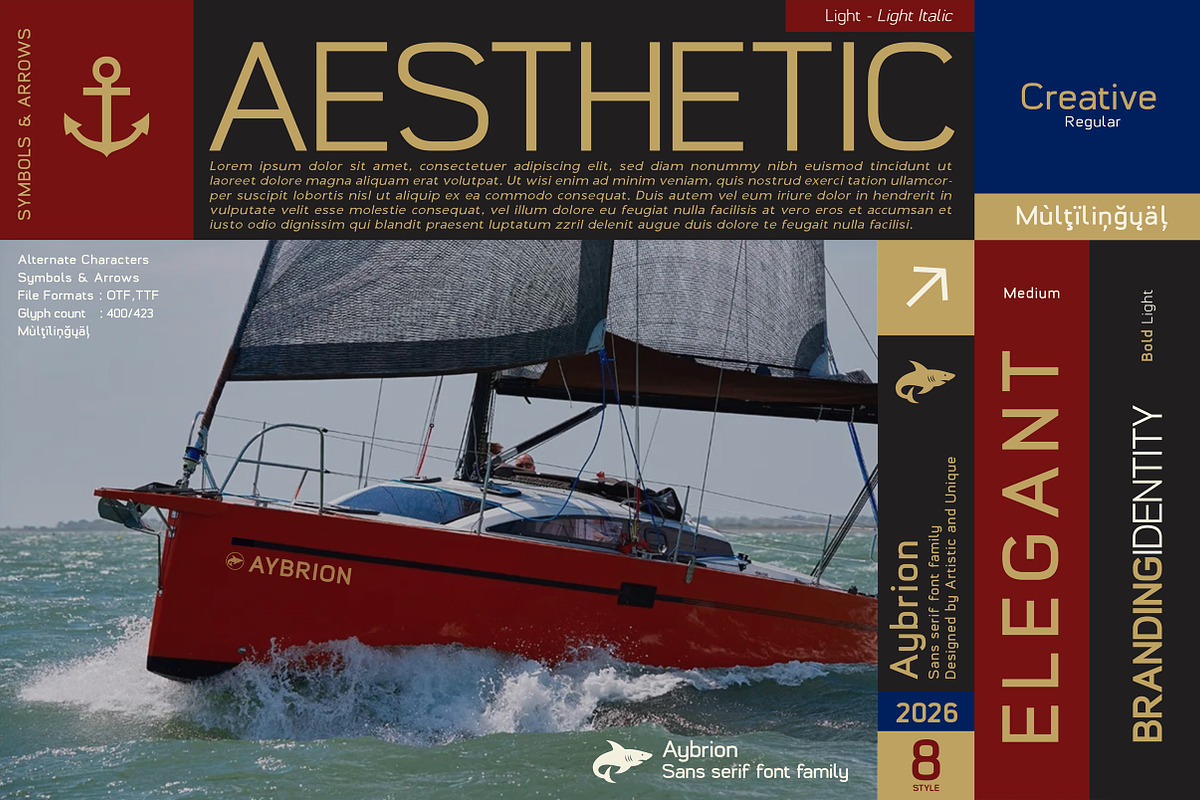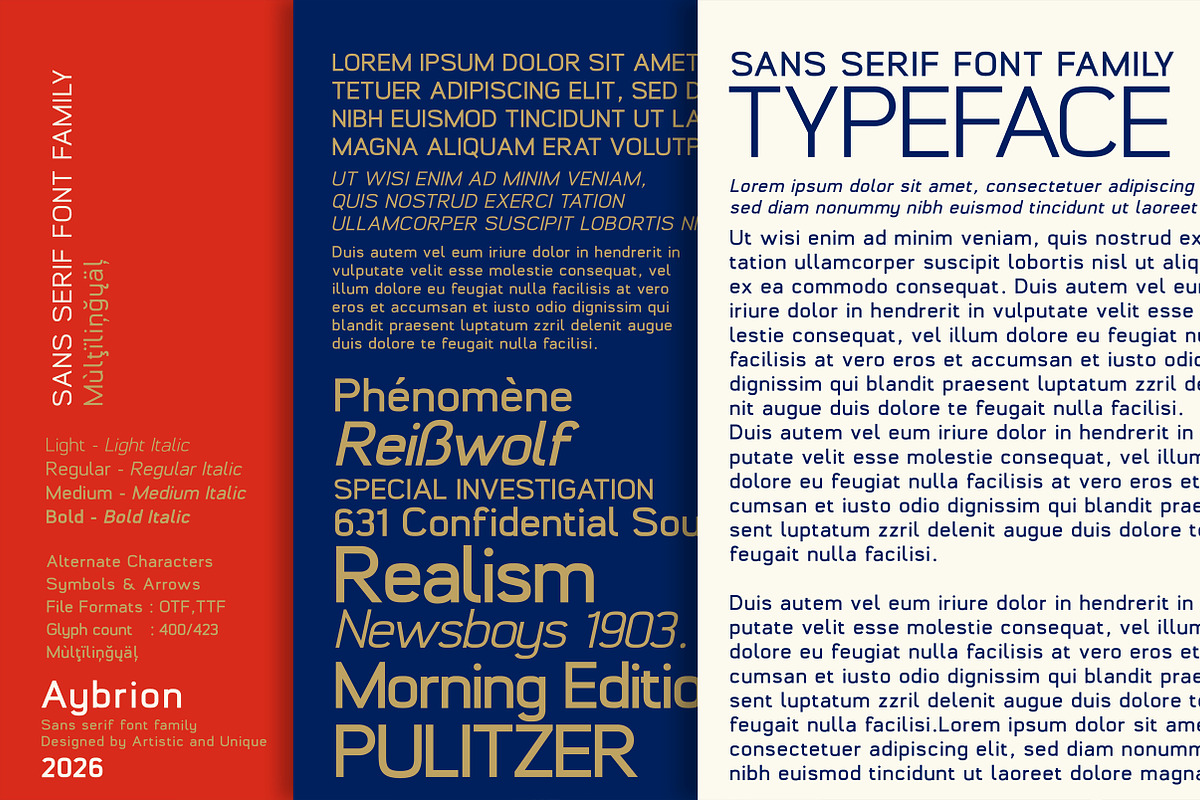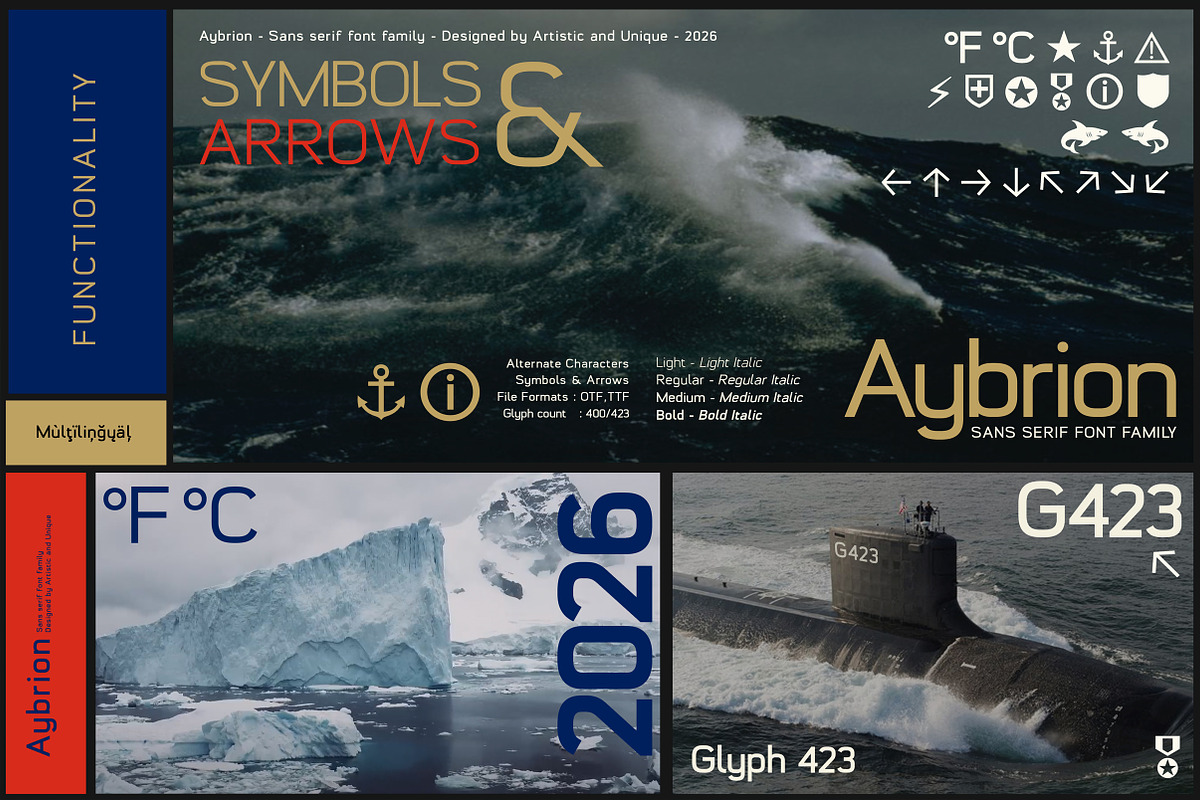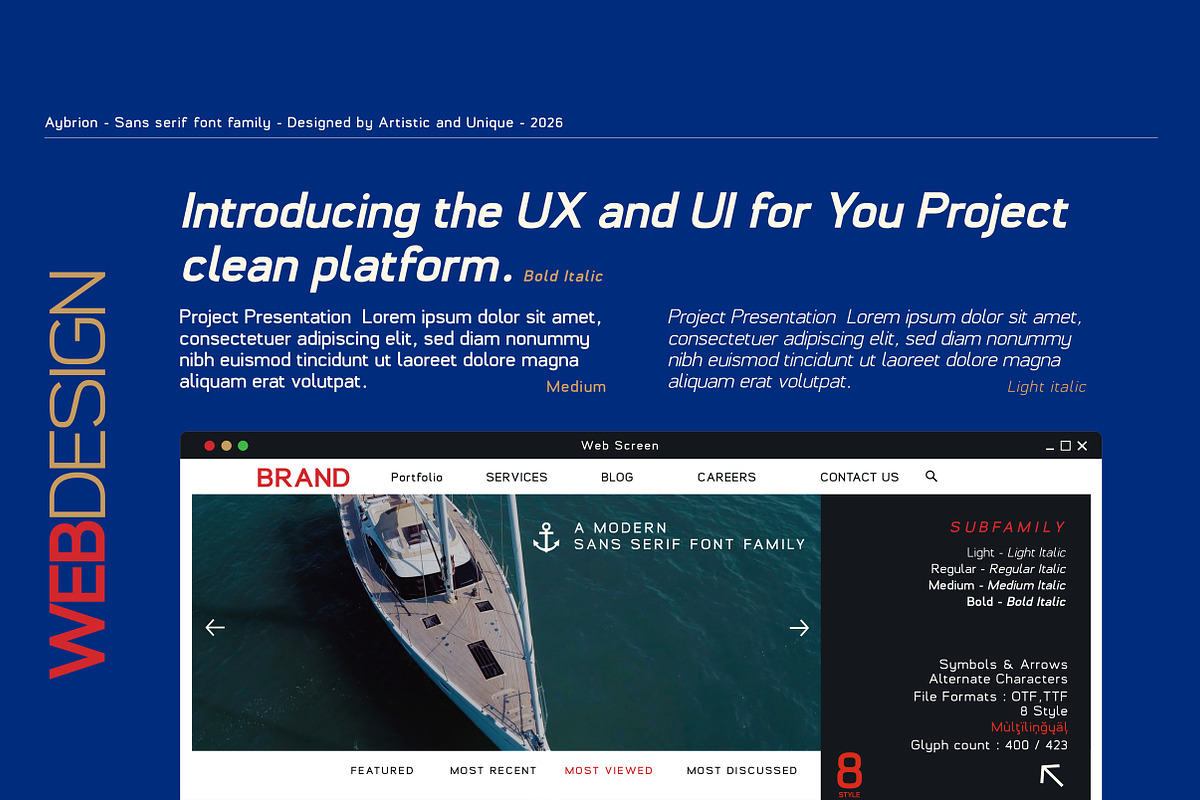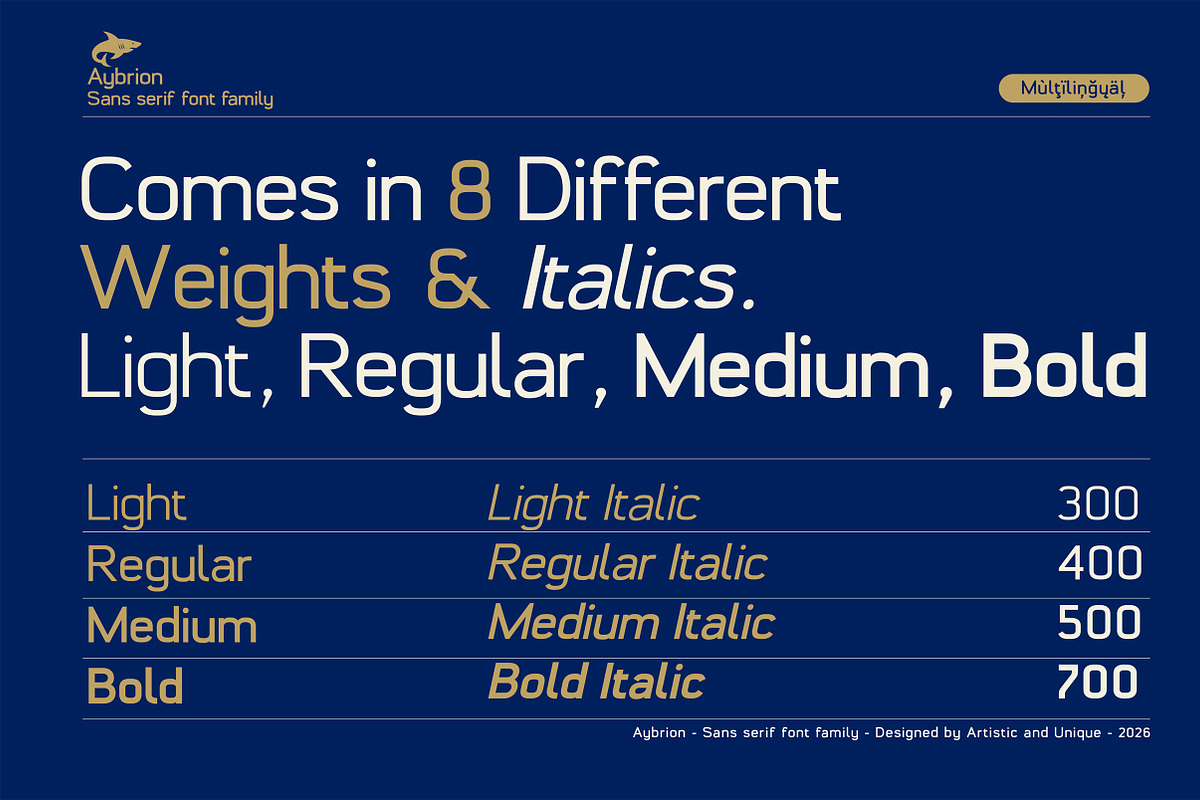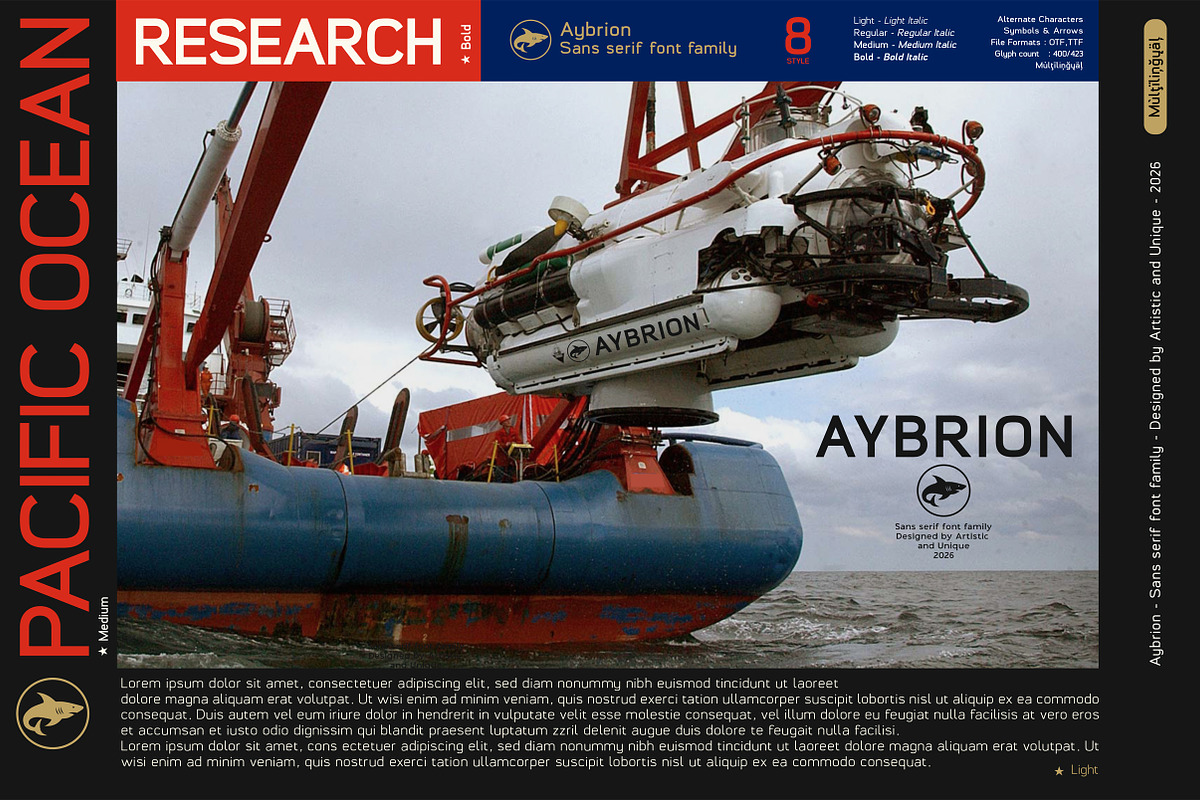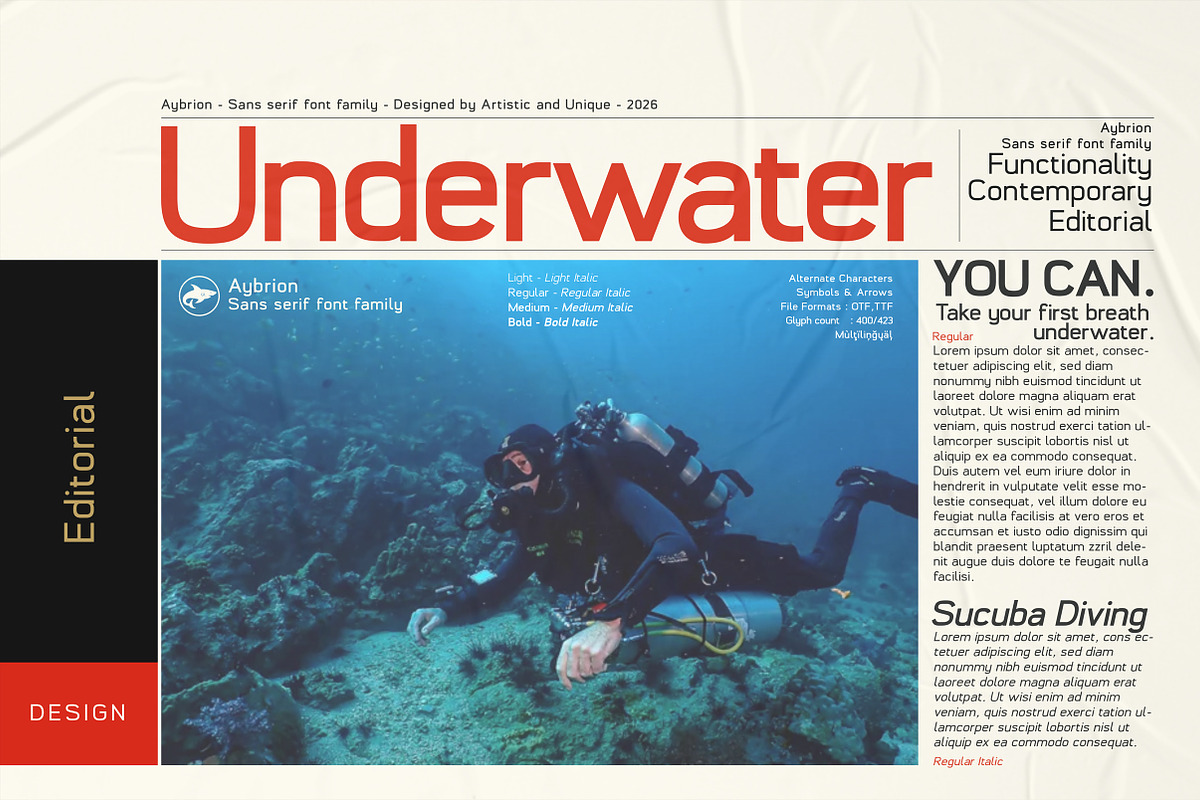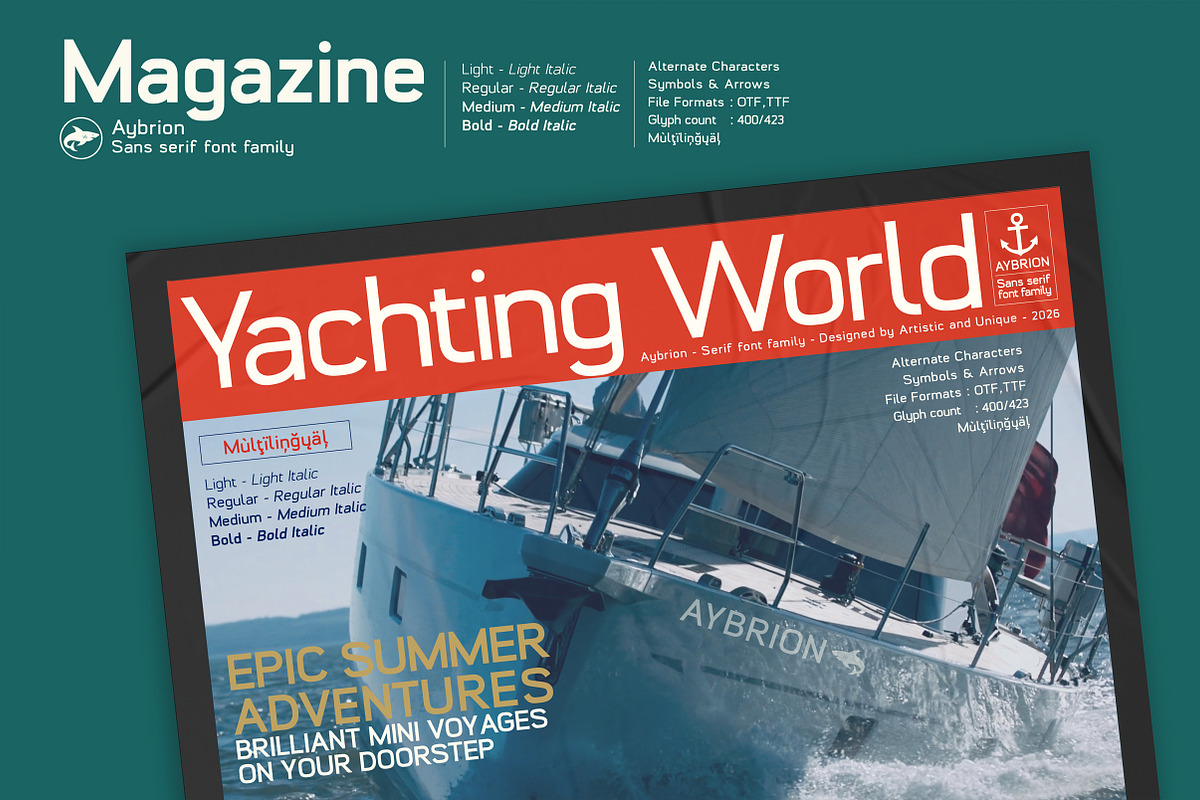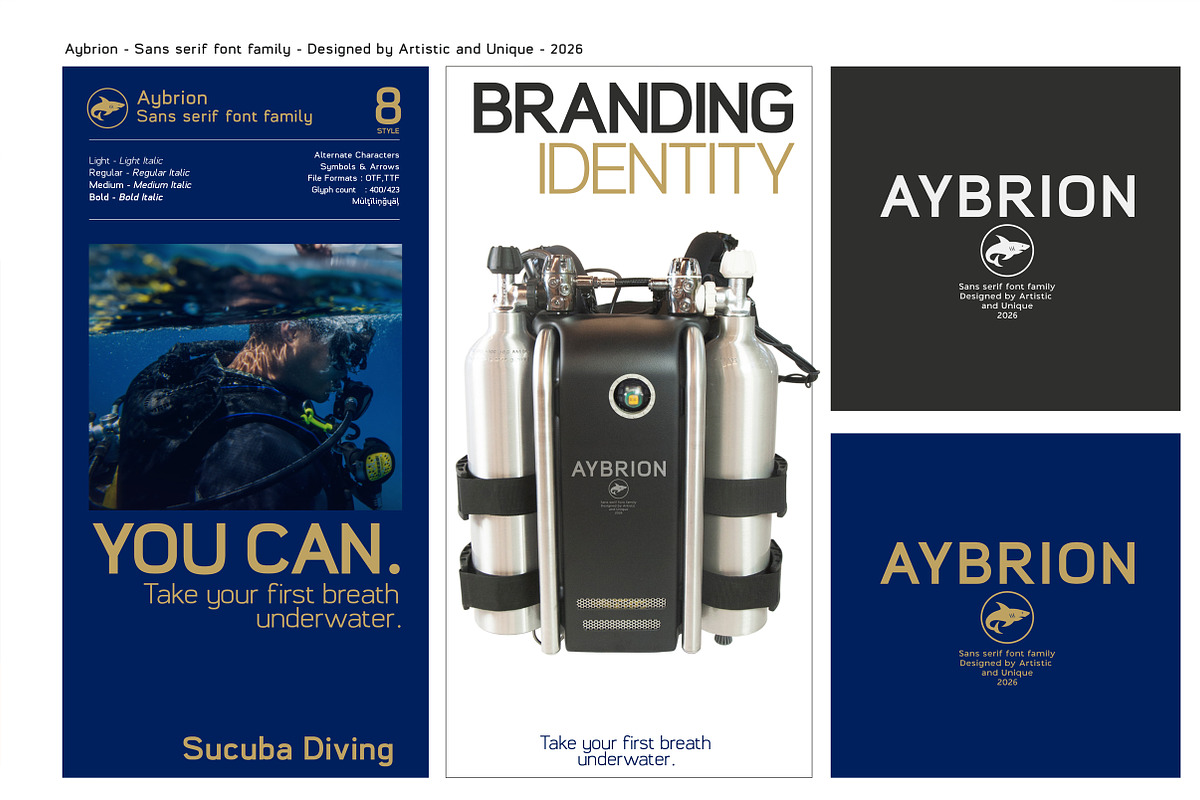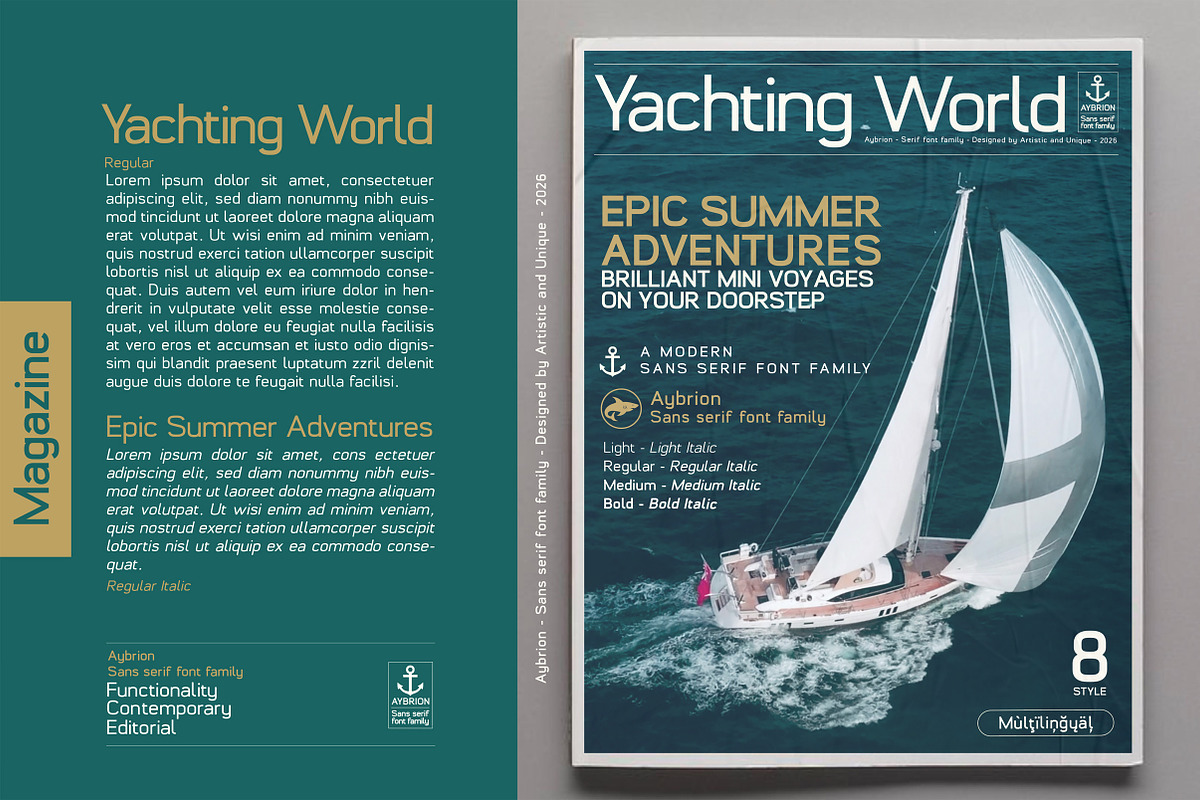
Aybrion - Sans Serif Font Family
Aybrion - Sans Serif Font Family - 8 Styles - Multilingual Support.
This sans serif font aims to offer an innovative solution for designers looking to enhance their brand toolsets; it stands out with its versatility, futuristic and industrial modern look. Its structural anatomy provides a futuristic and innovative appearance while seamlessly integrating into both digital and print projects.
This family features eight different styles offering consistent readability and elegance across a variety of creative works. Multilingual support further enhances flexibility; lighter tones provide an elegant visual appearance, while darker tones stand out with consistent and strong emphasis in headlines.
- Multilingual support,
- 8 different styles,
- Style alternatives,
- Rich glyph options (423),
- Perfect for branding and editorial design,
- Suitable for web and logo design,
- Alternative characters and additional symbols.
Whether designing books, magazines, newspapers, packaging, industrial brand, editorial design, websites, or logos, the The Aybrion font family offers a harmonious blend of aesthetics for your modern and innovative needs.